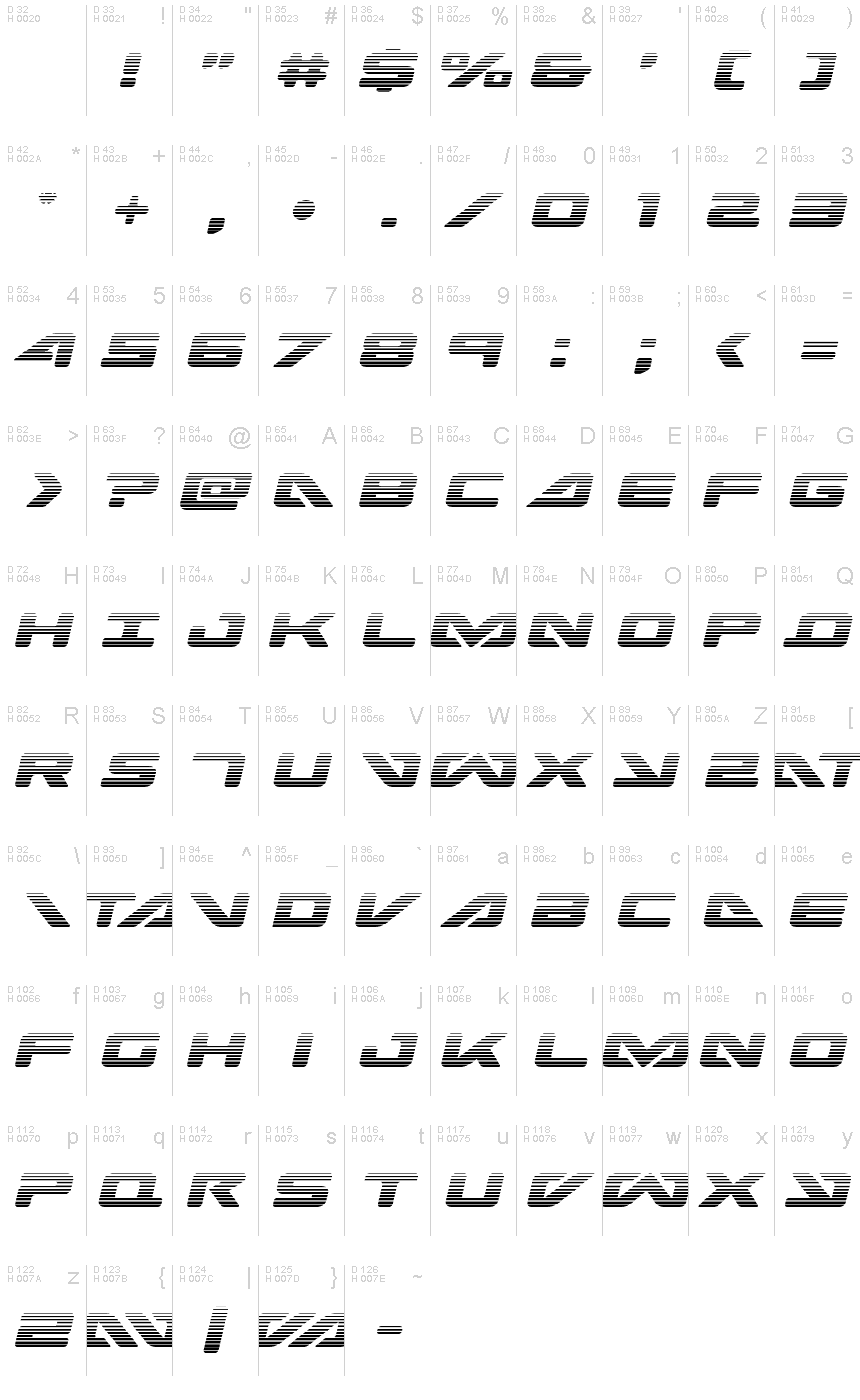
Looking for a futuristic and eye-catching display font that will make your projects stand out? Look no further than Sea-Dog Gradient Semi-Italic, the latest creation from iconic designer Iconian Fonts. With its bold, extra-bold weight and extra-expanded width, this font commands attention and makes a statement on any page. Perfect for use in high-tech or science fiction projects, Sea-Dog Gradient Semi-Italic brings a touch of the future to your designs. Whether you're working on a cutting-edge website or an out-of-this-world marketing campaign, this font is sure to make an impact.
Sea-Dog Gradient Semi-Italic